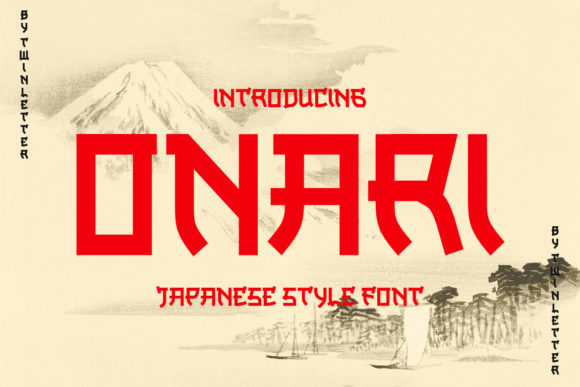
Onari Faux Japanese Font
About the Onari Faux Japanese Font
We are excited to introduce Onari Faux Japanese Font, a must-have typeface for any serious designer. Onari is a display font with a strong character, similar to the original Japanese letters, and it has a Japanese flair. This typeface is ideal for your project since it will make your work look stylish, understandable, and, most importantly, it will fascinate your audience.
Logotypes, food banners, branding, brochure, posters, movie titles, book titles, quotes, and more may all benefit from this font.
Of course, using this font in your various design projects will make them excellent and outstanding; many viewers are drawn to the striking and unusual graphic display.
Start utilizing this typeface in your projects to make them stand out.
Onari Faux Japanese Font Usage Examples
Onari Faux Japanese Font Example